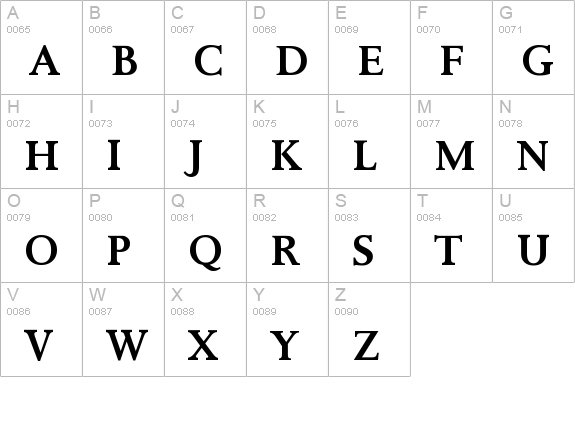
PalermoSerial-Medium-Regular is a balanced, medium-weight variant in the PalermoSerial typeface family \xE2\x80\x94 well suited to sub-headlines, navigation, and balanced editorial work.
Introducing PalermoSerial-Medium-Regular font, a versatile and elegant typeface that exudes sophistication and modernity. With its clean lines and balanced proportions, this font is perfect for a wide range of design projects, from branding to editorial layouts. PalermoSerial-Medium-Regular font strikes the perfect balance between professionalism and creativity, making it suitable for both corporate and creative applications. Its medium weight ensures readability and legibility, while its sleek design adds a touch of finesse to any project. Best of all, PalermoSerial-Medium-Regular font is available for free download at FontsMarket.com. This means you can access this premium font without any cost, making it an excellent choice for designers looking to elevate their work without breaking the bank. Download PalermoSerial-Medium-Regular font today and add a touch of sophistication to your projects with this high-quality typeface.